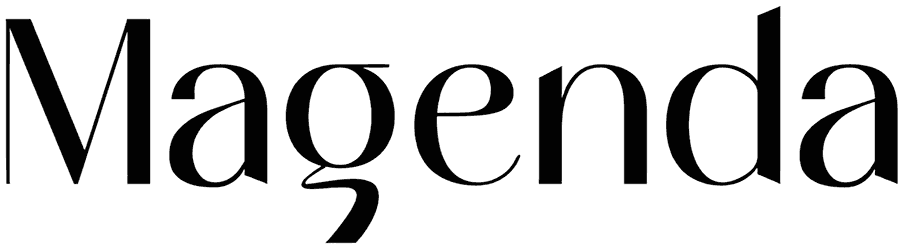
Magenda Font
Busy and flashy styles are less popular today as business owners look for a simple font like Magenda that will always stay in style and maintain appeal.
This luxury font has a soft and classic layout that creates a solemn atmosphere and can look brilliant on book covers, websites, and printed designs. So, if you’re tired of methods with a lot of decorations and want to give the eyes of the viewers a special break, add Magenda to the collection.